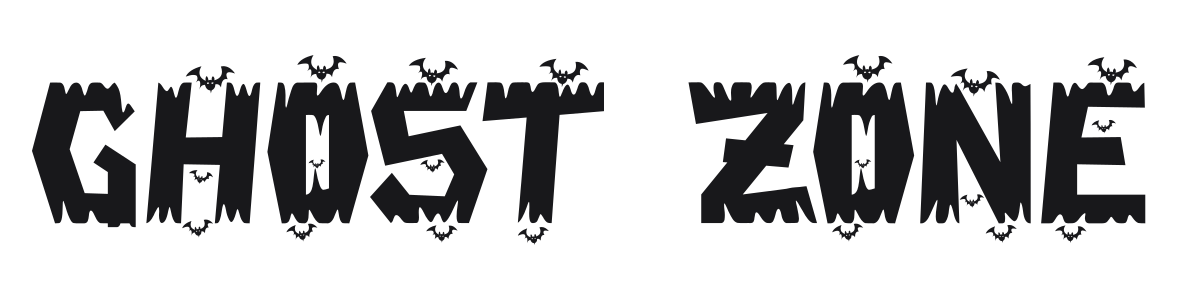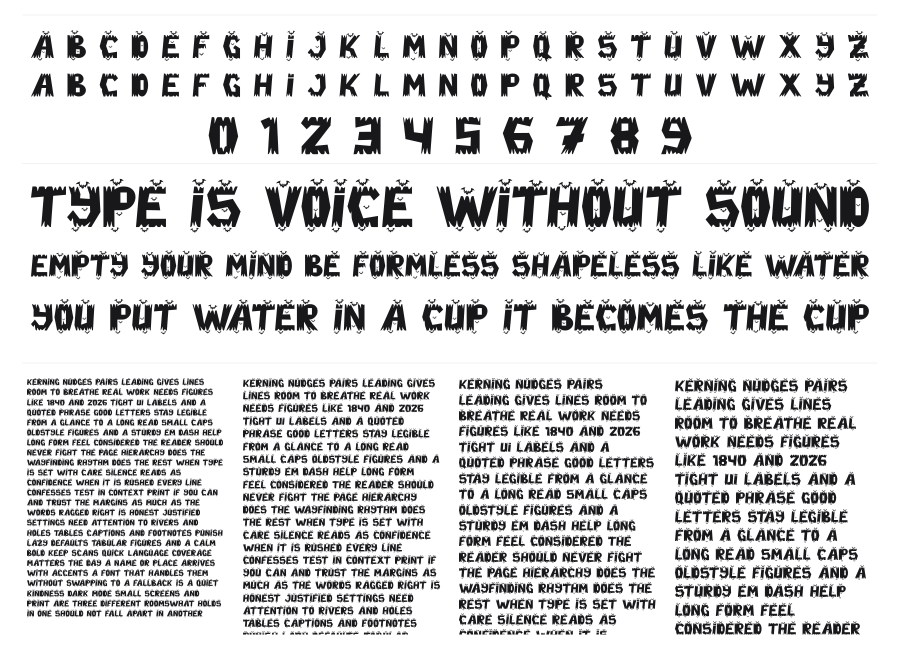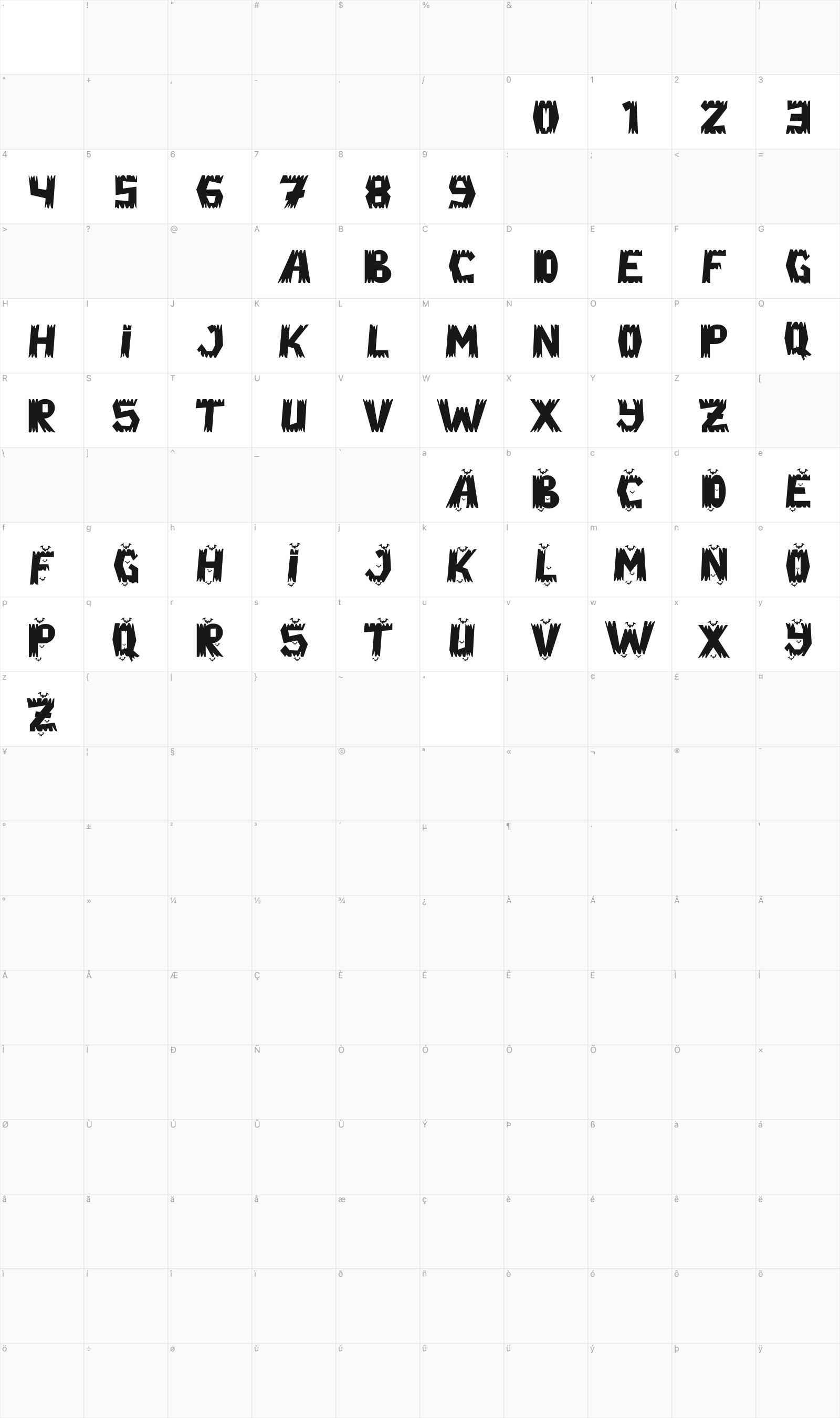
Ghost Zone
Ghost Zone is a Halloween display font by Sakha Design featuring heavy, ragged characters with torn edges and tiny bat silhouettes scattered across every letter. The chunky, distressed construction lands somewhere between playful and spooky. It works best at large sizes for seasonal posters, party invitations, and horror-themed branding.